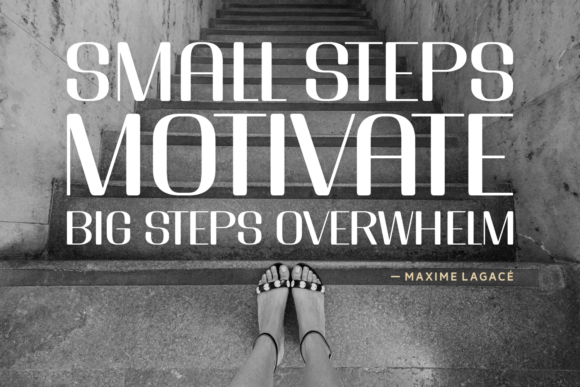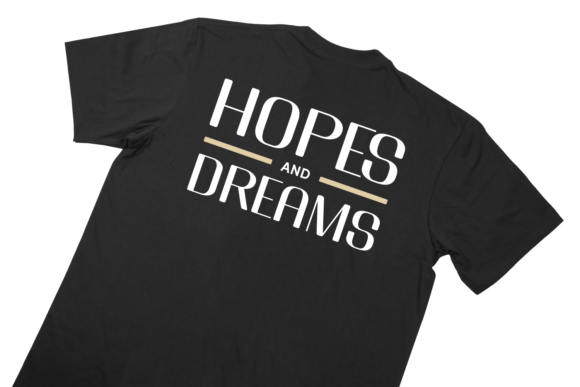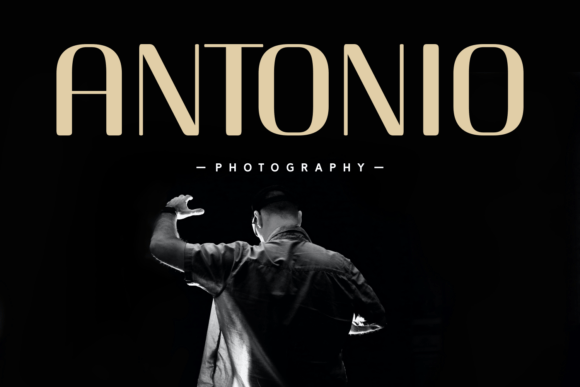
Introducing Good More Font: The Ultimate Bold Sans Serif for Modern Designs
In the world of typography, fonts play a crucial role in conveying messages, expressing emotions, and creating visual identities. For designers and crafters, finding the perfect font can be a daunting task, especially when it comes to creating bold and attention-grabbing text. This is where Good More Font comes in – a bold sans serif font that features clean, modern lines, making it perfect for headlines, titles, and any text that needs to make a statement.
Clean, Modern Lines for a Strong and Confident Appearance
Good More Font boasts a sleek and contemporary design, characterized by its clean and modern lines. The font’s sans serif style gives it a fresh and minimalist look, making it perfect for designs that require a strong and confident appearance. The bold weight of the font ensures that it stands out from the crowd, grabbing the attention of readers and leaving a lasting impression.
Ease of Readability for a Friendly yet Professional Look
One of the standout features of Good More Font is its exceptional readability. The letters are carefully crafted to be easy to read, even at smaller font sizes. This makes it an excellent choice for designs that require a friendly yet professional look. Whether you’re creating a logo, brochure, or website, Good More Font ensures that your text is clear, concise, and easily digestible by your audience.
Perfect for Headlines and Attention-Grabbing Text
Good More Font is specifically designed for headlines and attention-grabbing text. Its bold and confident appearance makes it perfect for titles, headings, and any text that needs to stand out. The font’s modern and sleek design ensures that it looks great in a variety of contexts, from digital screens to print materials.
Versatility for Various Design Applications
Good More Font is a versatile font that can be used in a wide range of design applications. Whether you’re a graphic designer, crafty DIY enthusiast, or digital artist, this font is perfect for various projects, including:
- Headlines and titles for articles and blog posts
- Signage and display text
- Packaging and labeling
- Digital graphics and social media posts
Why Choose Good More Font?
With so many fonts available, why choose Good More Font? Here are just a few reasons:
- Unique and distinctive design: Good More Font has a unique and distinctive design that sets it apart from other fonts.
- Exceptional readability: The font’s letters are carefully crafted to be easy to read, even at smaller font sizes.
- Versatility: Good More Font can be used in a wide range of design applications, from digital screens to print materials.
- Modern and sleek design: The font’s modern and sleek design ensures that it looks great in a variety of contexts.
In conclusion, Good More Font is an excellent choice for designers and crafters looking for a bold sans serif font that features clean, modern lines. Its strong and confident appearance, exceptional readability, and versatility make it perfect for headlines, attention-grabbing text, and various design applications. Whether you’re creating a logo, brochure, or website, Good More Font is sure to make a lasting impression on your audience.